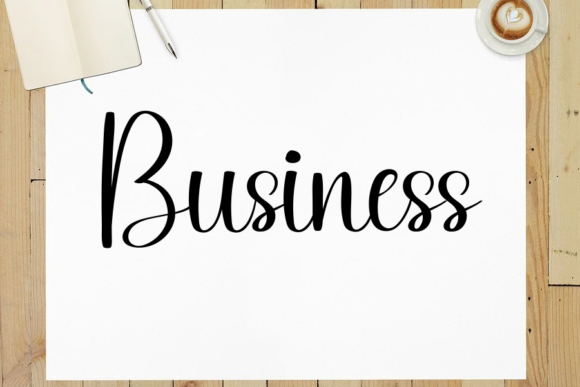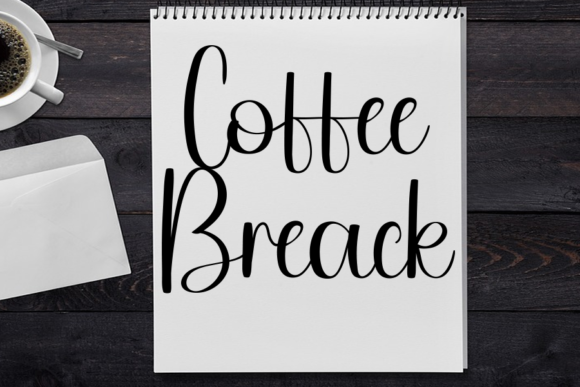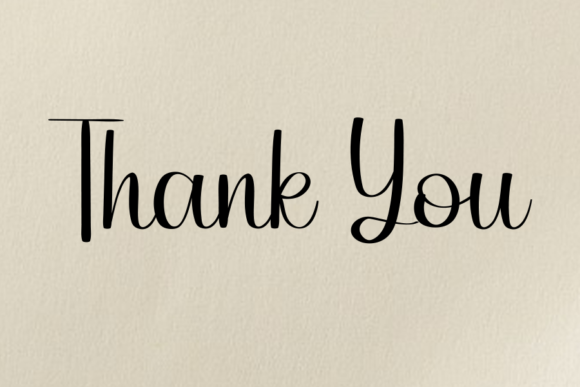
Sweet Smile Font
About Sweet Smile Font
Sweet smile is a clean, easy to read and delicate handwritten font. This font was particularly crafted for those who need a beautiful and refreshing look to their designs.